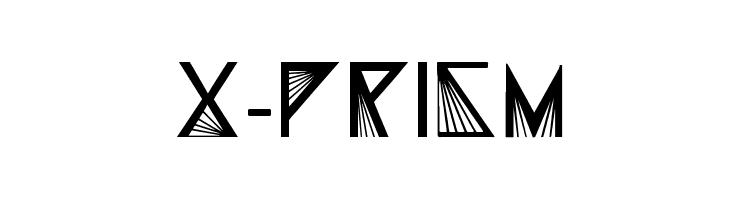
( Fonts by bob istheowl http://luc.devroye.org/bobistheowl.html )
A graphic, poster-inspired decorative font made of illustrated character blocks.
A decorative, thorn-like font with sharp, jagged edges for a bold statement.
( Fonts by Geronimo )
A playful, cartoonish font with bold, rounded outlines and a whimsical style.
( Fonts by Gabriel Cunha )
A geometric, angular font with a bold and dynamic style.
( Fonts by Jecko Development )
A pixelated, digital-style font with a retro, blocky aesthetic.
( Fonts by Bobz Type )
A modern, segmented geometric font with bold, rounded shapes.
( Fonts by Rafa )
A playful, bubble-themed decorative font with interconnected circular patterns.
( Fonts by Rafa )
A bold, dotted font perfect for decorative and playful designs.